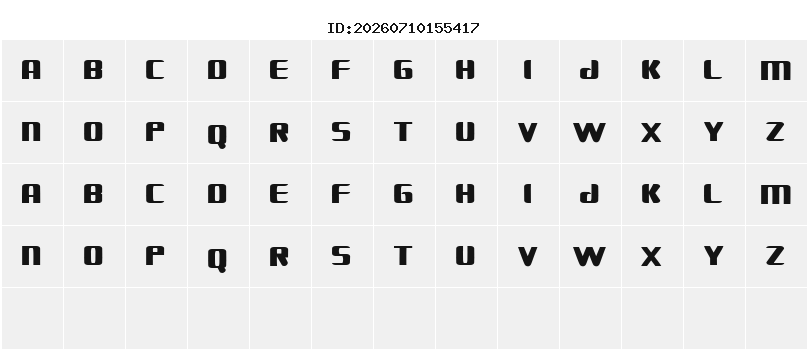
FANTASTIC FOUR MOVIE Preview
• Font Name: FANTASTIC FOUR MOVIE
• Full Font Name: FANTASTIC FOUR MOVIE
• Character Count: 54
• Designer: P. A. Vannucci
About FANTASTIC FOUR MOVIE.ttf
FANTASTIC FOUR MOVIE.ttf is a modern, elegant sans-serif font designed for ultimate readability and visual harmony. Perfect for branding, headlines, web design, and print materials.